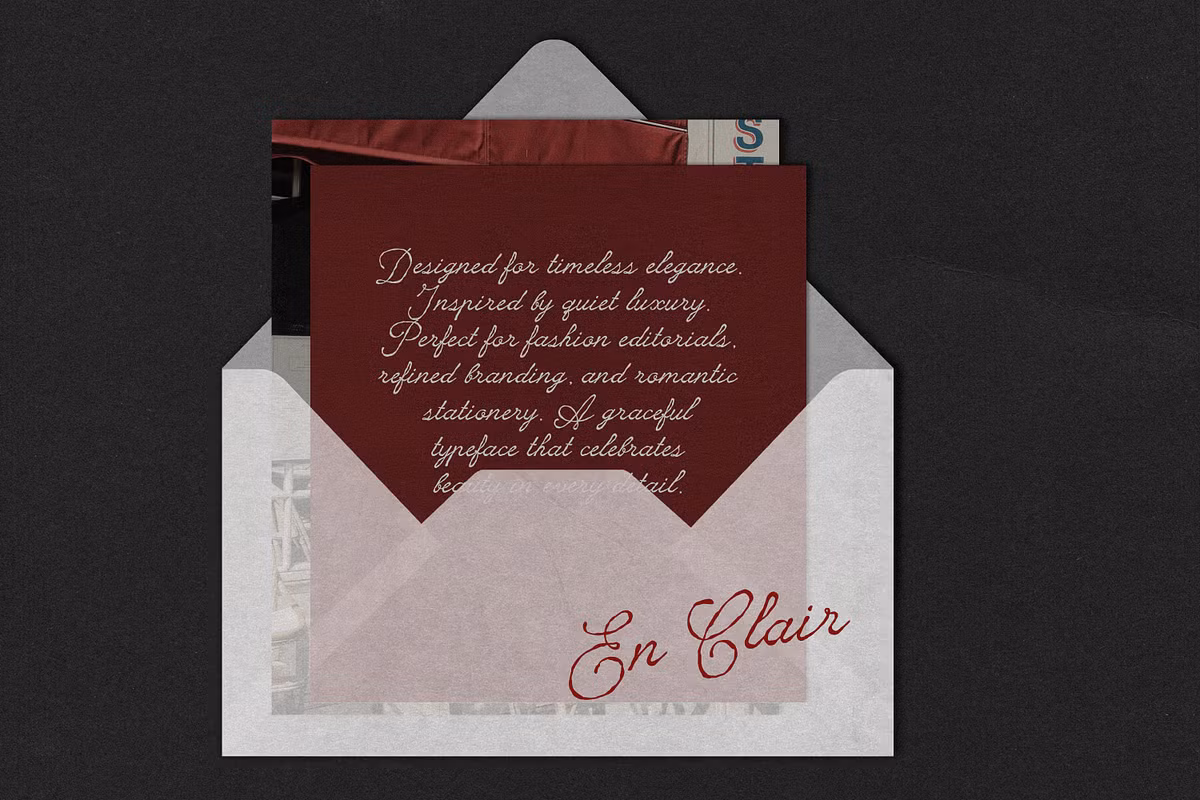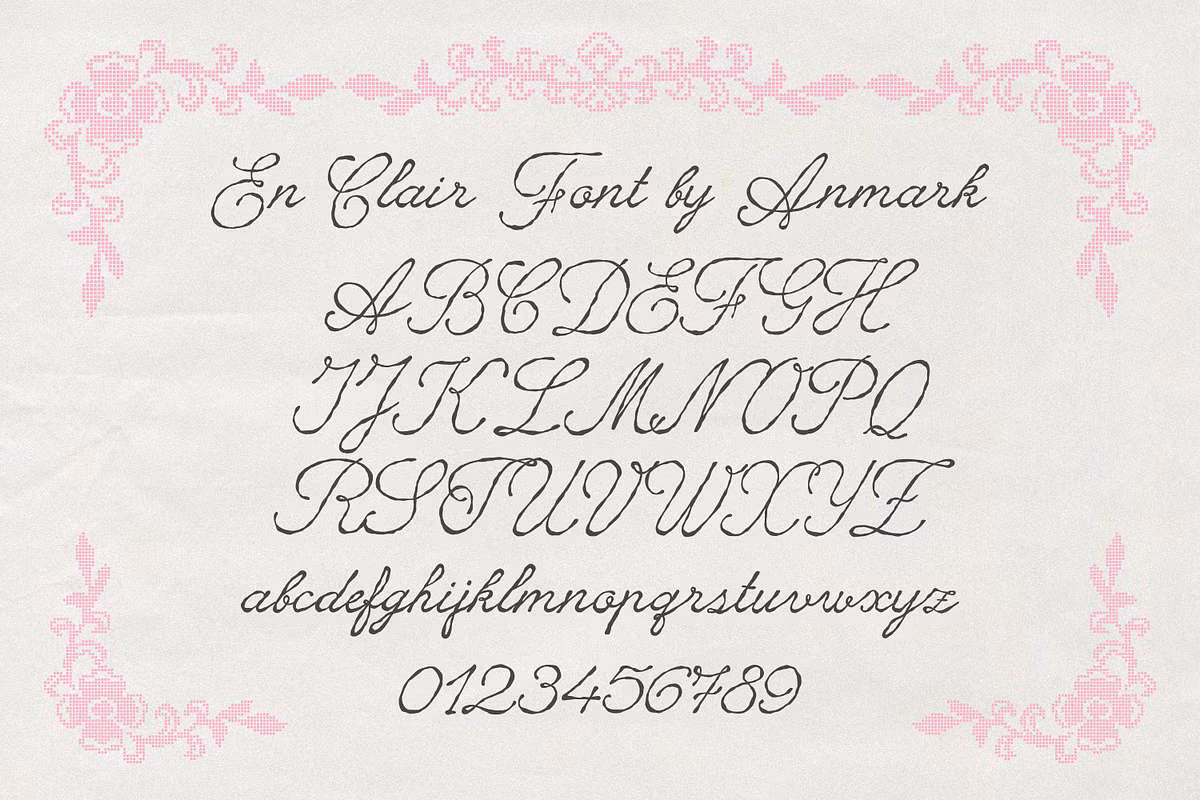
En Clair Vintage Rough Script Font: Elegant Handcrafted Typeface for Designs
The En Clair font is a style script that feels elegant and clear. The En Clair font has a hand made texture that adds a rich feel to any design project. I have used the En Clair font for wedding invitations and for brand materials. I found the En Clair font easy to work with. If you are making a wedding invitation or a brand logo, the En Clair font is a choice. The En Clair font mixes feel and new look.
The En Clair font has a flowing calligraphy style. The En Clair font shows the look of type. The En Clair font has curves and loops. The curves and loops give a feeling of romance and art. The En Clair font works well for design projects. The En Clair font has a texture that makes it feel like a design. The En Clair font fits today’s market that likes handmade work.
As a script font, En Clair creates the interest and the personality in my designs. En Clair has a look that works in both casual settings. I can add character to my work with En Clair while still keeping the elegance. I love using En Clair. The versatility of En Clair makes my designs stand out whether I use them for projects or for work.
Character Sets
I see that the En Clair font has a big character set. The En Clair font includes letters, numbers, and special characters. The En Clair font works for languages and different cultures. The multilingual support of the En Clair font keeps my designs together. It looks good for any language my audience reads.
En Clair includes more than just the characters. En Clair adds alternates and ligatures so you can change your typography. I like that En Clair lets me make monograms, logos, or personalized gifts. Unique lettering can enhance the look. The options give designers the freedom to try styles and keep the font’s feel.
Use Cases
The versatility of En Clair makes it fit for various applications. Here are some use cases for En Clair:
- Wedding Invitations: I love how En Clair has a whimsical style. The En Clair style makes it perfect for making wedding invitations that leave a lasting impression.
- Bridal Stationery: I find the font works on save-the-date cards and thank-you notes. The font enhances the look of stationery.
- Fashion Branding: En Clair has the look. It is perfect for fashion brands that want a rich, top-quality feel.
- Layouts: I notice that magazines and lifestyle publications can use the font’s touch. The editorial touch adds charm to headings and body text.
- Luxury Product Packaging: The special feel and look of En Clair improve packaging design for luxury products, drawing the eye.
- Social Media Graphics: I use Social Media Graphics to stand out in the space. The flowing script of En Clair makes graphics that draw attention.
In conclusion, the En Clair font offers an elegant yet versatile option for various design needs, making it a great choice for anyone looking to add a handcrafted touch to their projects.